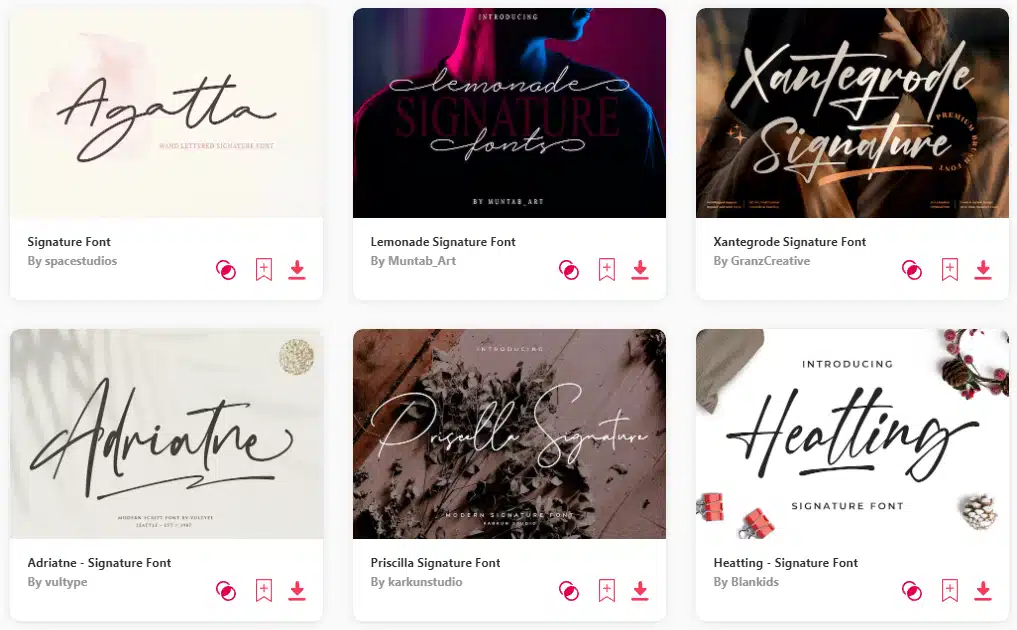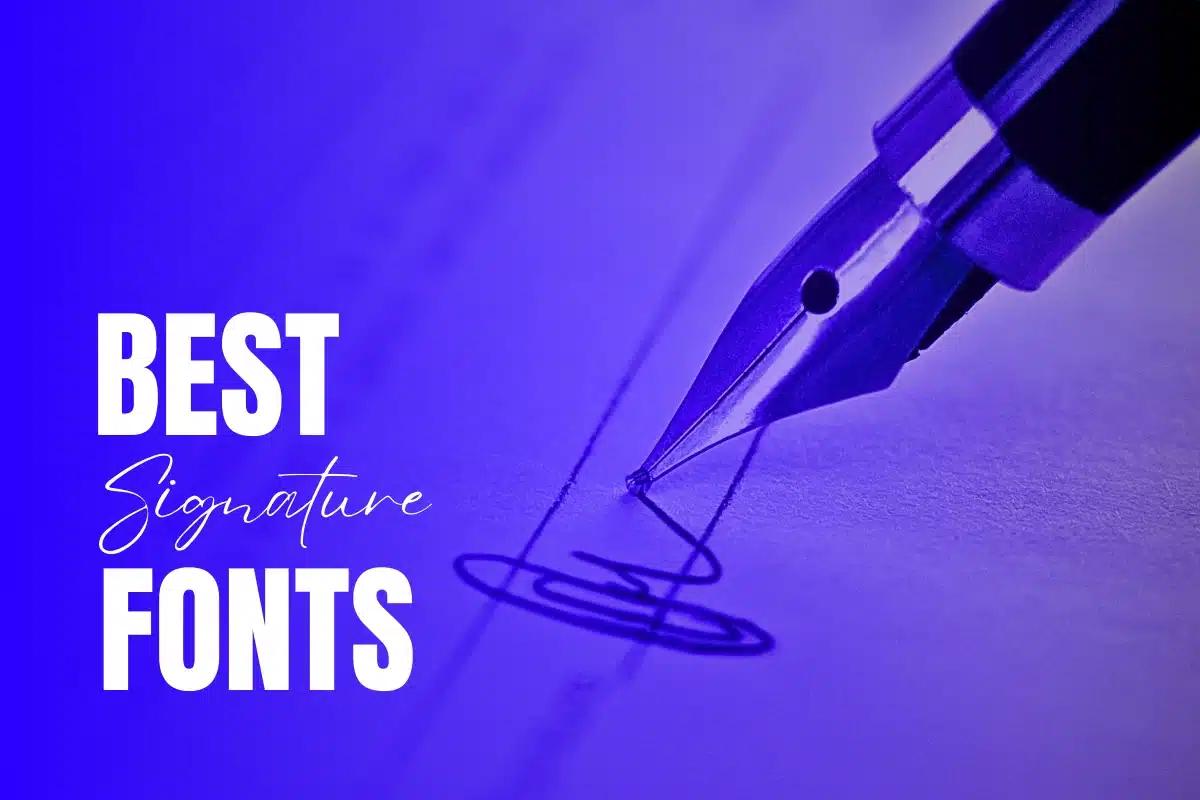
Stand Out from the Crowd with the 9 Best Signature Fonts of All Time
Discover the allure of the best signature fonts, creating a buzz and infusing an air of sophistication into the branding landscape. These typographic gems possess the remarkable ability to establish a genuine, emotion-driven connection with products and services. It’s no wonder that industry titans and marketing maestros are placing a high value on incorporating signature fonts, seamlessly weaving them not just into their logos but also throughout their marketing materials.
Moreover, the signature fonts of renowned brands serve as a silent, yet powerful, means of ensuring their identity is etched firmly in the minds of consumers. Consider iconic names like Barbie and Disney. A mere glimpse of their distinctive fonts immediately triggers recognition, conveying their core values with effortless grace. And the magic doesn’t stop there; signature fonts are poised to emulate that same level of familiarity and instant association.
In a world where a multitude of signature fonts are readily available at your fingertips, we’ve meticulously curated the finest selection to save you the hassle. Below, you’ll find our comprehensive list of fonts, expertly chosen to add a professional and authentic touch to all your creative projects.
Why is the Selection of the Best Signature Font So Vital?
1. Distinct Branding: A signature font can establish a unique brand identity, setting your work apart from the crowd and making it instantly recognizable.
2. Elegance and Sophistication: Signature fonts are often synonymous with elegance and sophistication, imbuing your creations with a touch of class.
3. Versatile Application: These fonts can be incredibly versatile, serving a wide range of purposes. Whether you’re working on a business card, a blog header, or a social media post, the right signature font can tie everything together seamlessly.
4. Personalization: A well-chosen signature font lets you infuse your personality into your design, creating a more authentic and engaging connection with your audience.
5. Timeless Appeal: The appeal of a signature font stands the test of time. It’s a design choice that remains relevant and stylish throughout the years.
Now, let’s embark on a journey through the captivating realm of typography, where we’ll explore the finest options for the “Best Signature Font.” What qualities set these fonts apart, and how can you make an informed choice that aligns perfectly with your creative objectives? We’ll also delve into the applications and the impact of these fonts across various design scenarios.
So, are you ready to discover the art of choosing the “Best Signature Font” and unravel the world of typographic elegance that awaits you?
Stand Out from the Crowd with the 9 Best Signature Fonts of All Time
Stand Out from the Crowd with the 9 Best Signature Fonts of All Time for Graphic Design, Branding & Logo Design